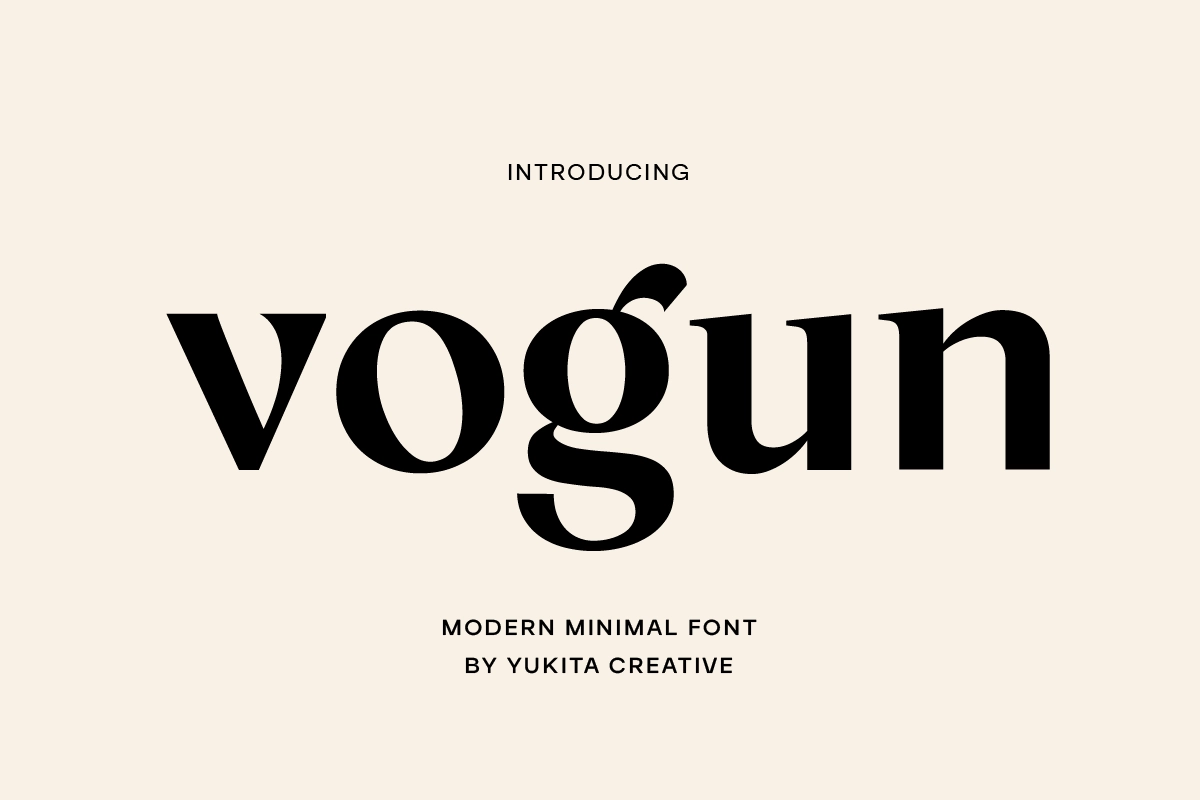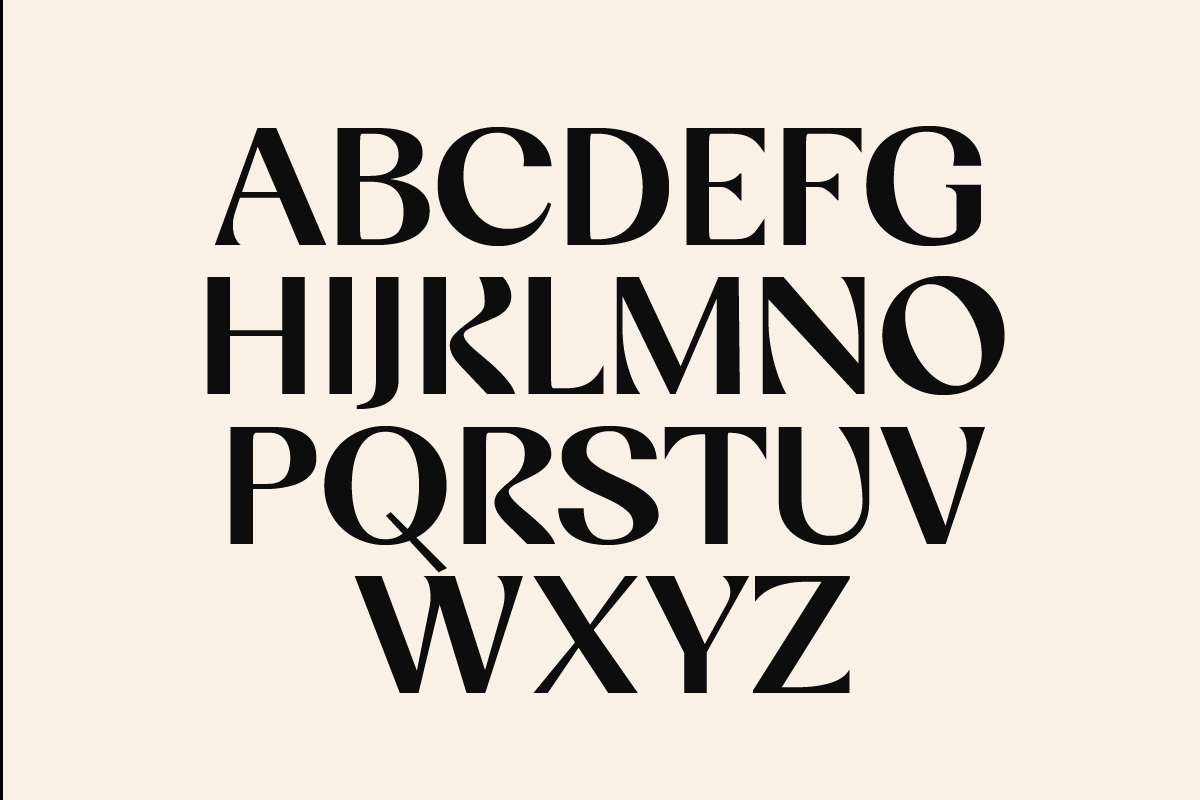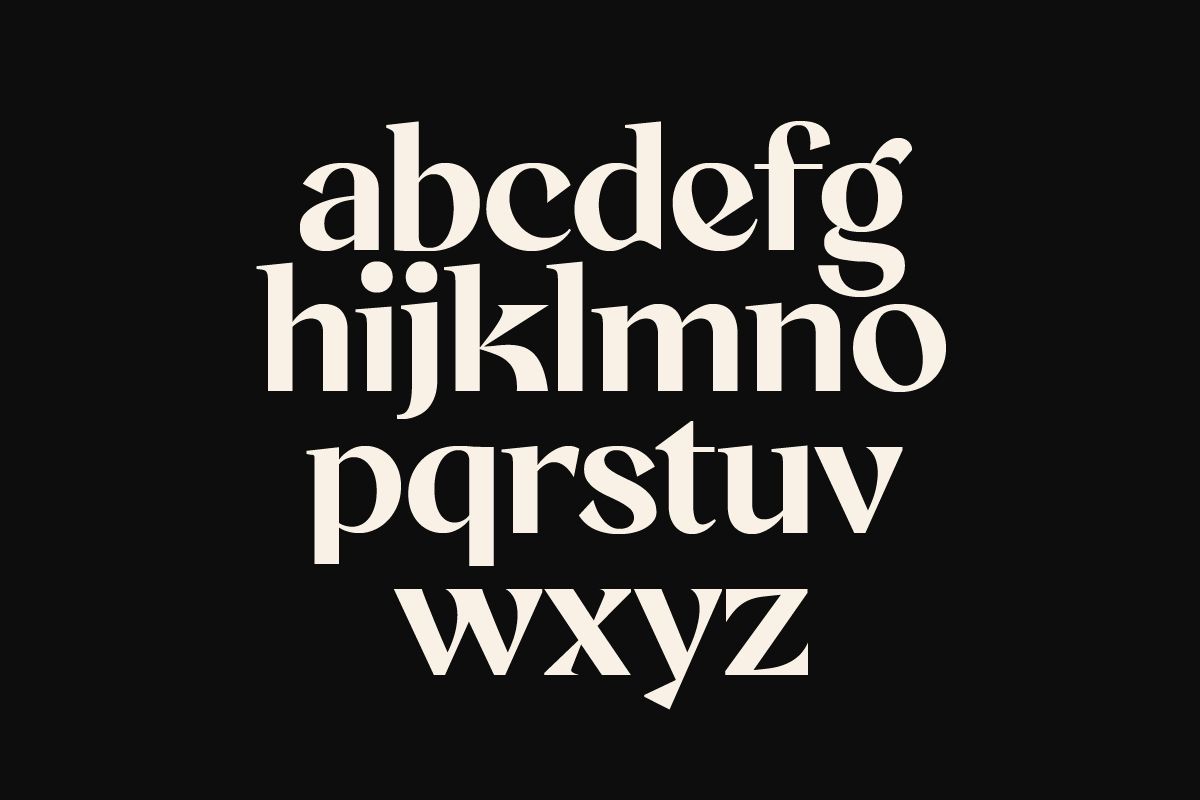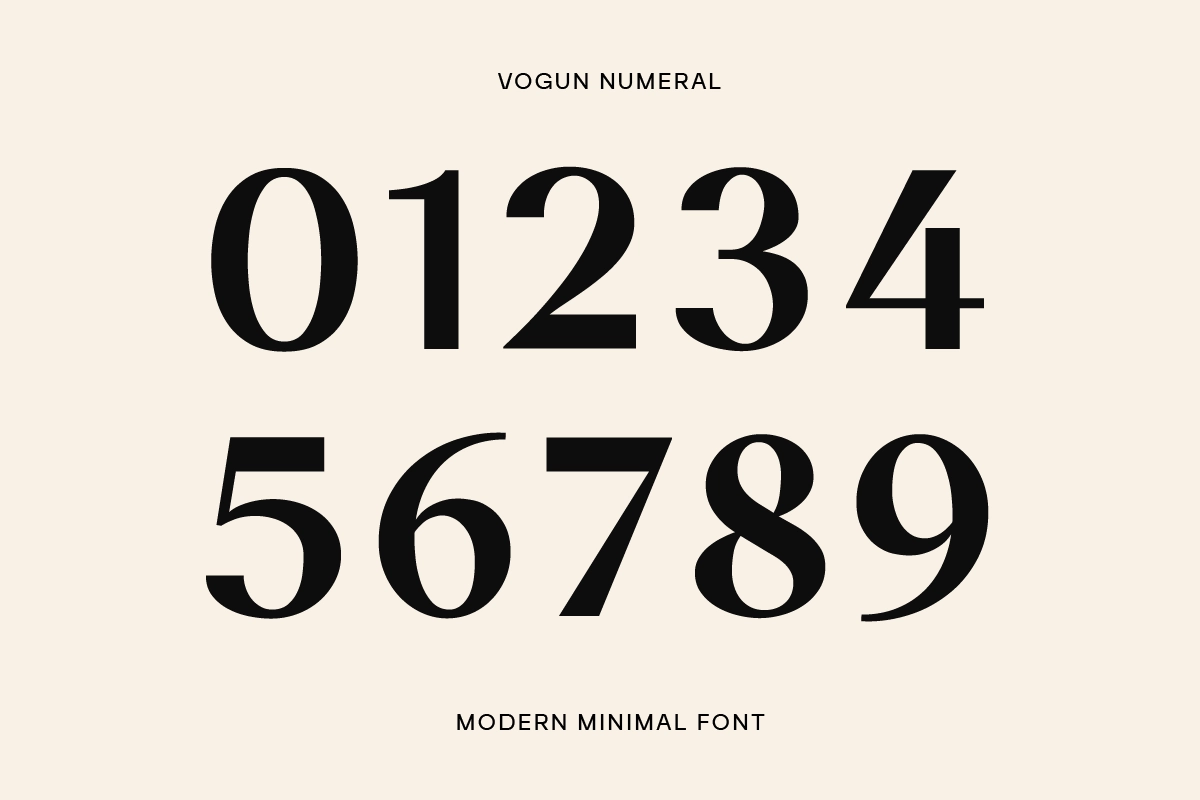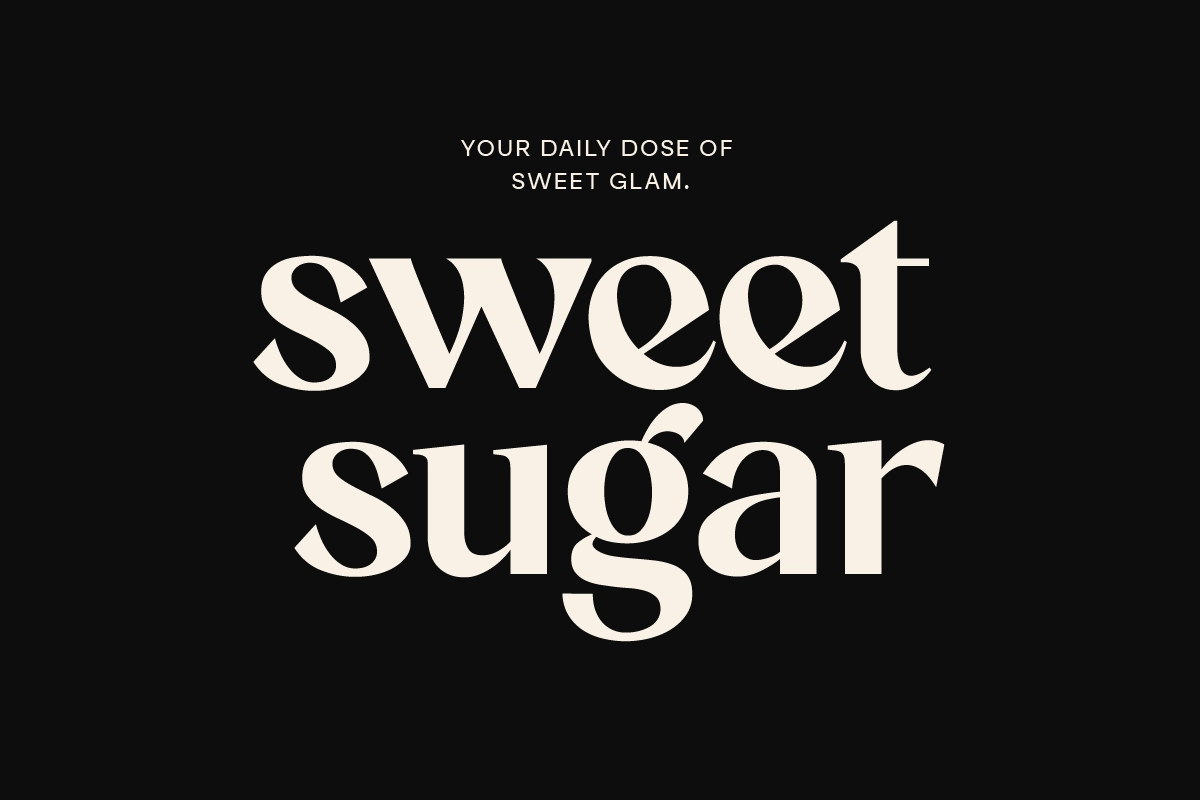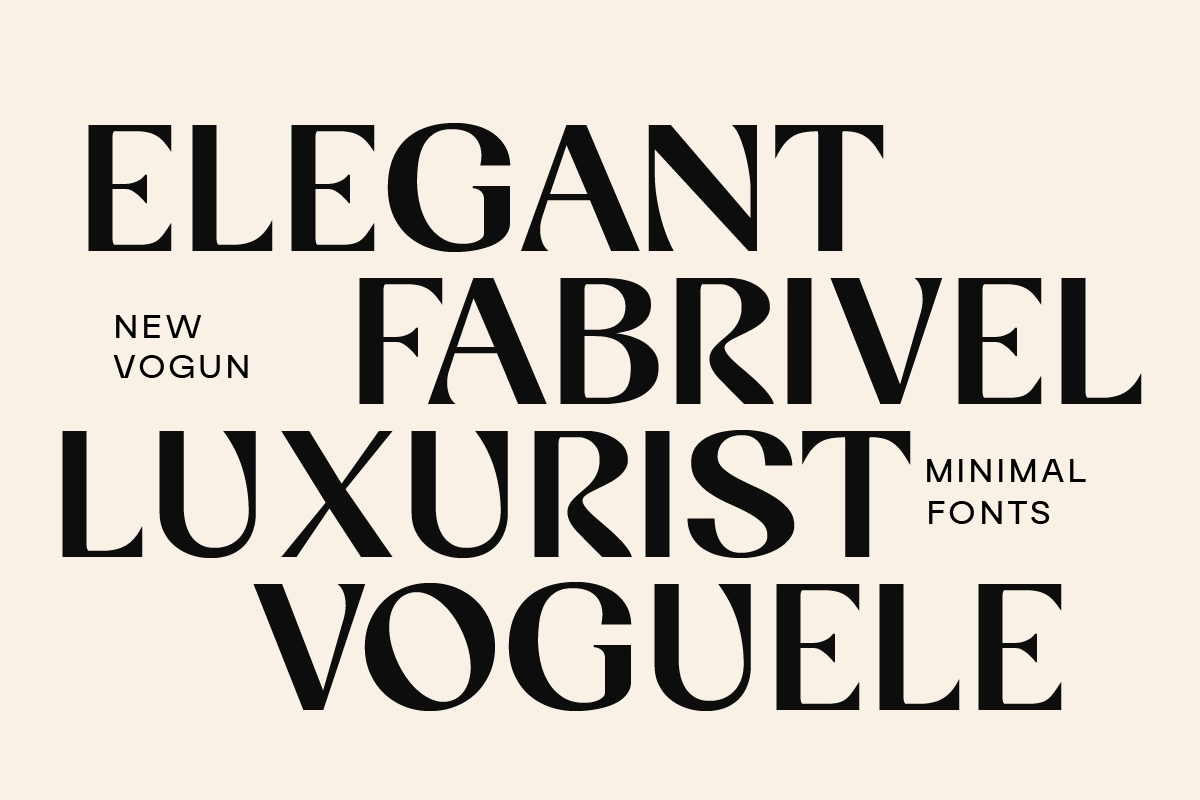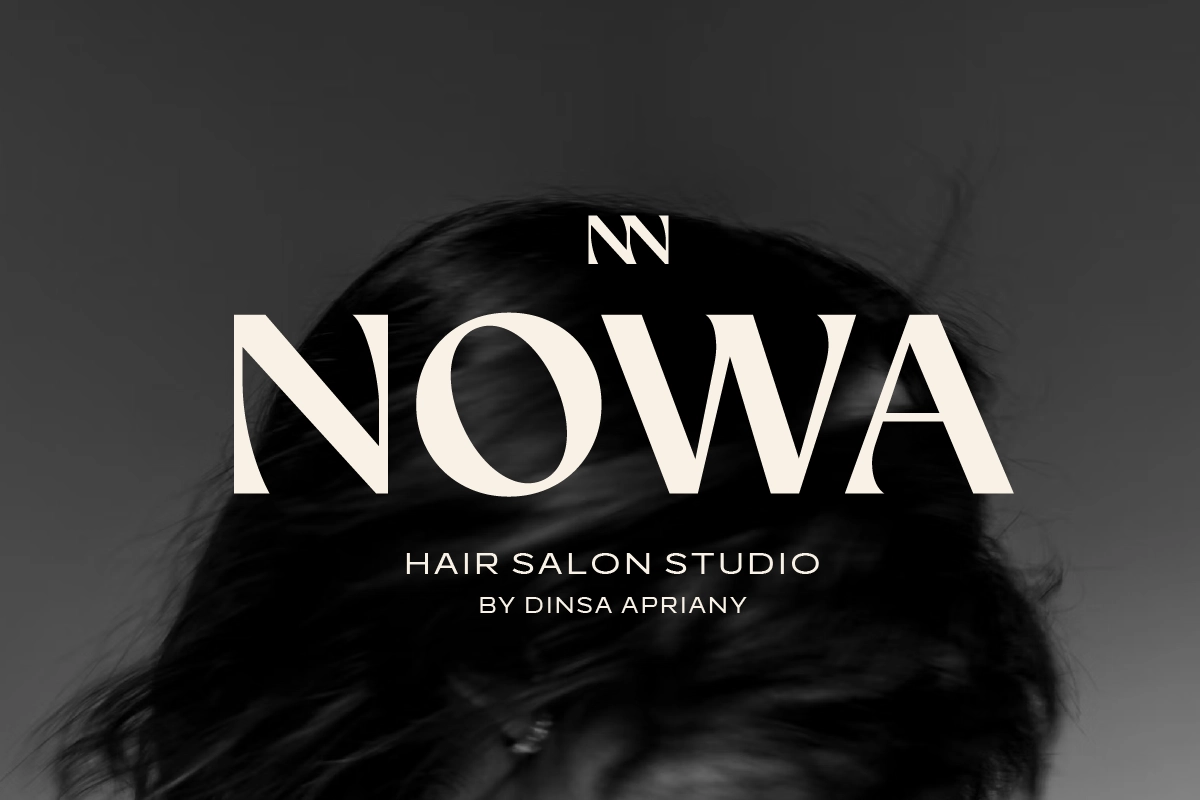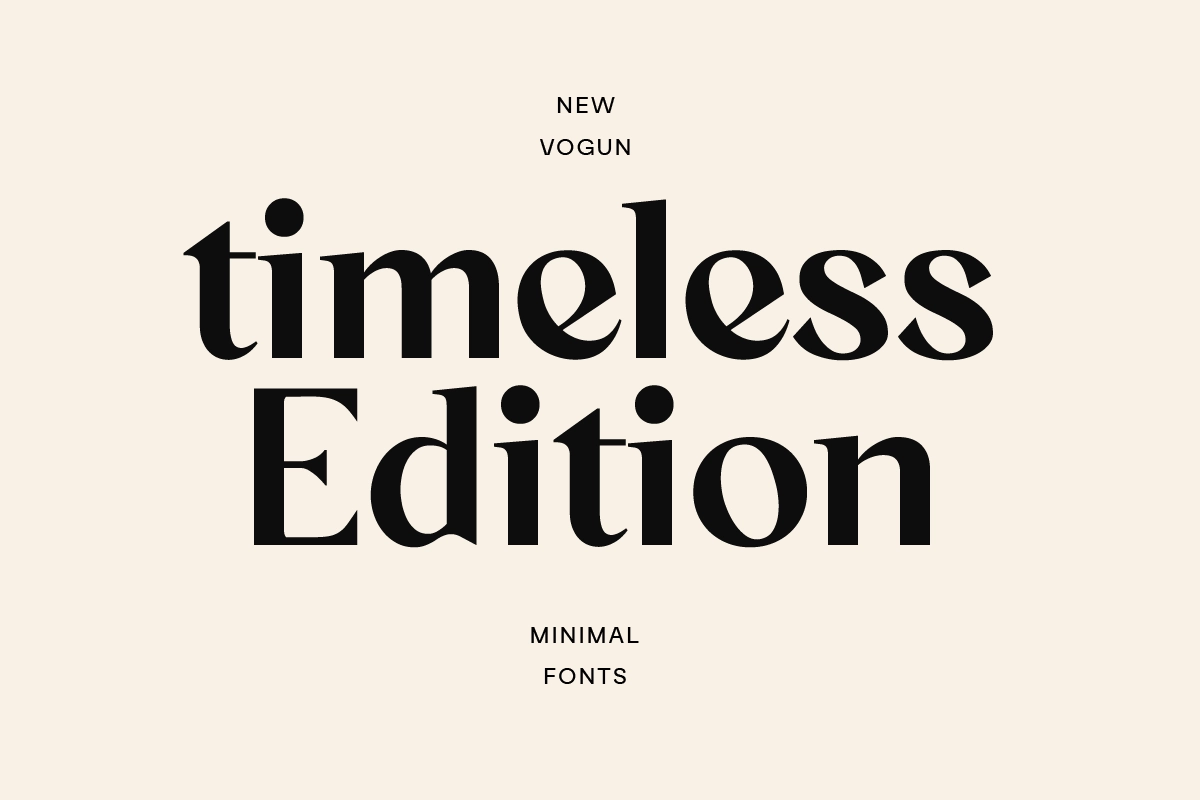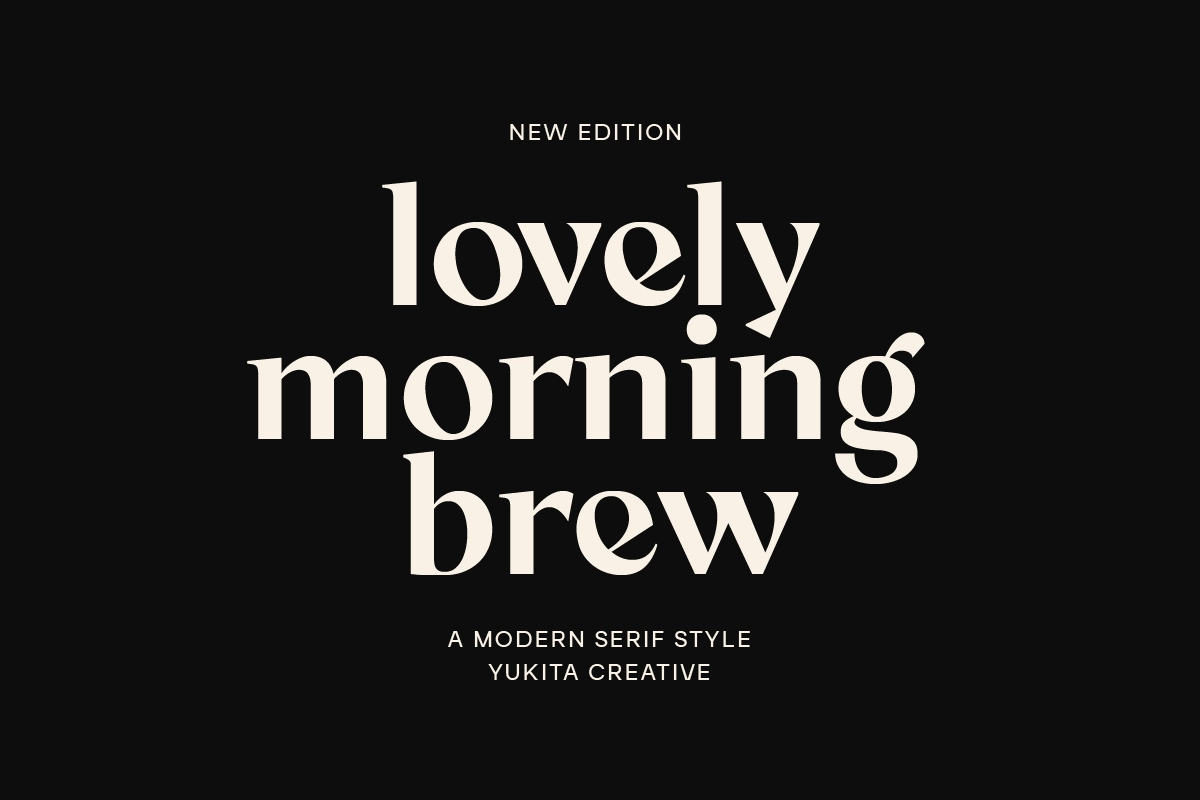
Vogun - Minimal Modern Serif Font
Vogun, Minimal Modern Serif Font features a crisp high-contrast serif with sharp cuts and geometric restraint, recalling the discipline of Bauhaus typography refined through contemporary fashion publishing. It works well for branding, editorial headlines, posters, packaging, luxury campaigns, and minimalist web layouts where clarity and structure define the visual voice.
- Regular & Italic styles
- Punctuation & symbols